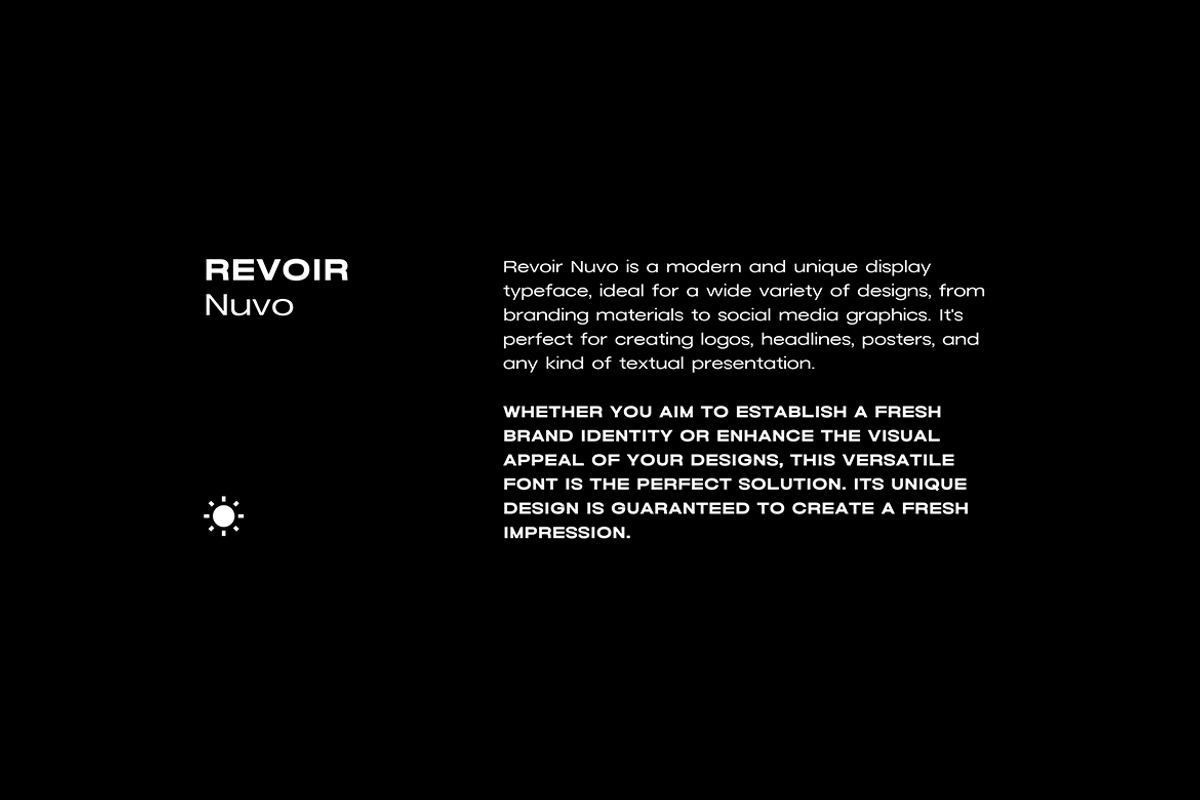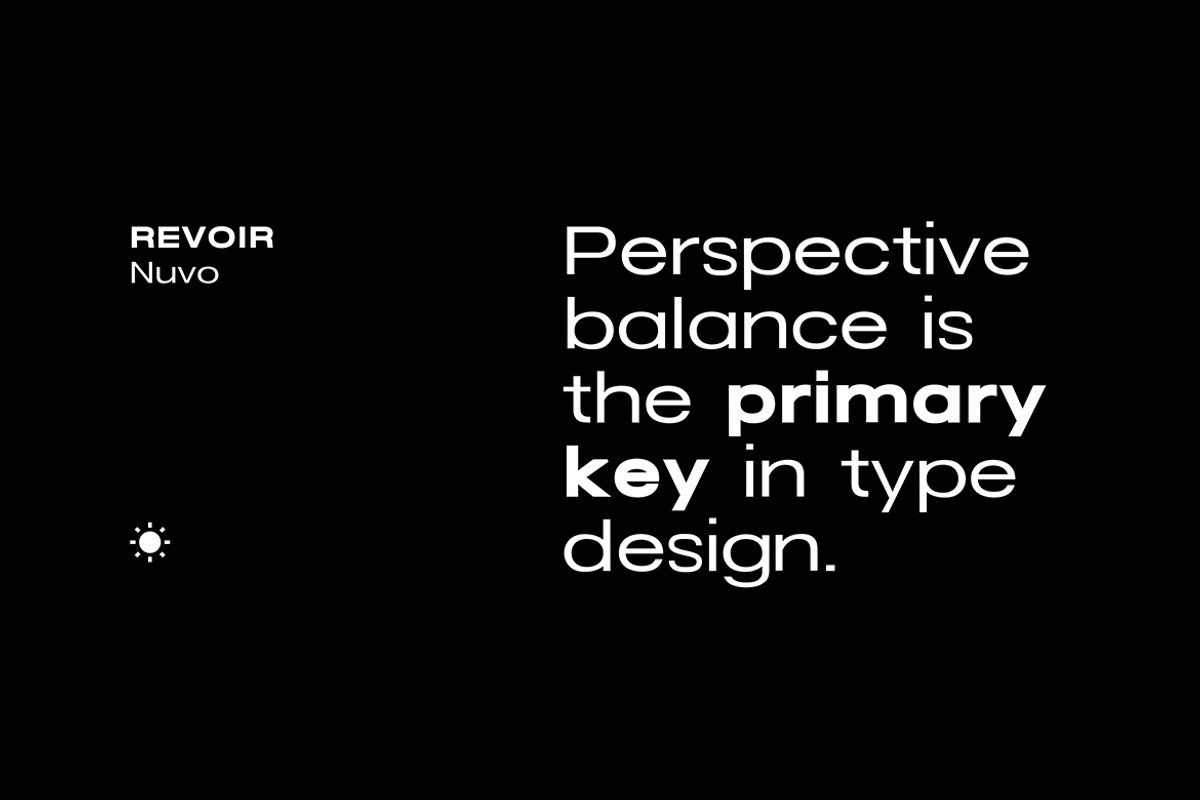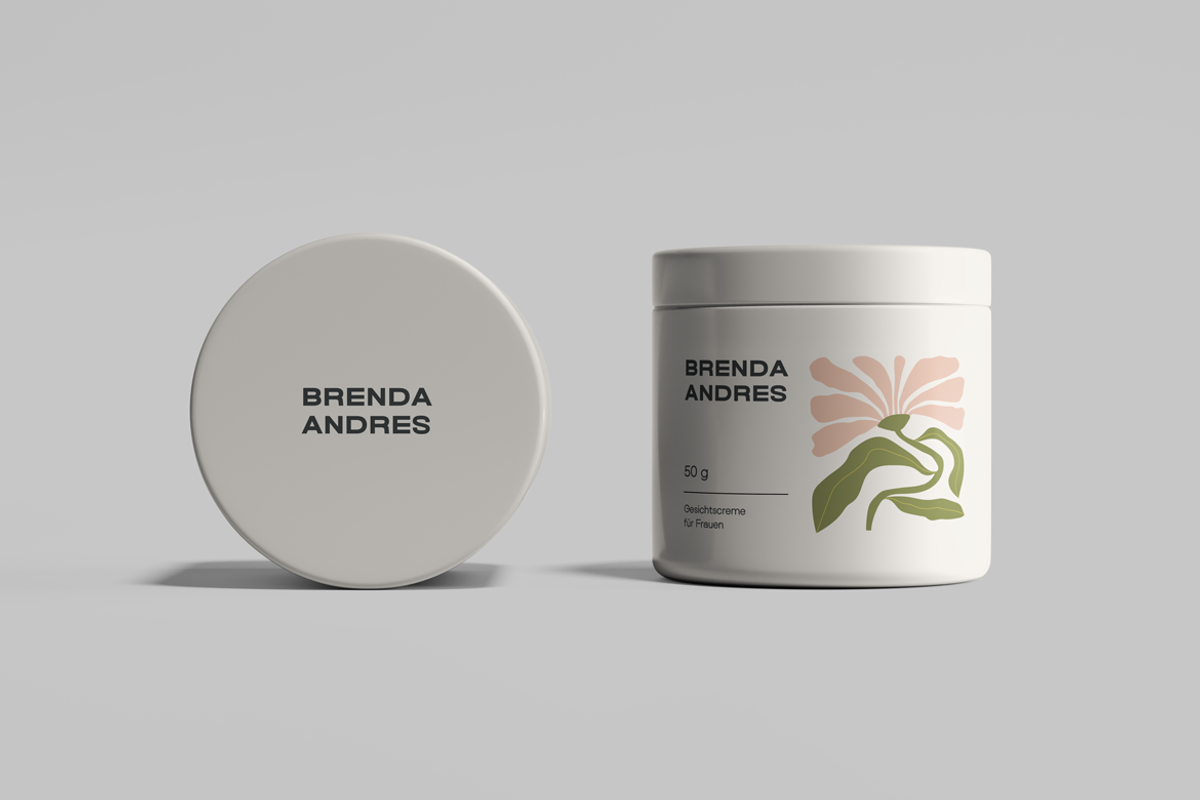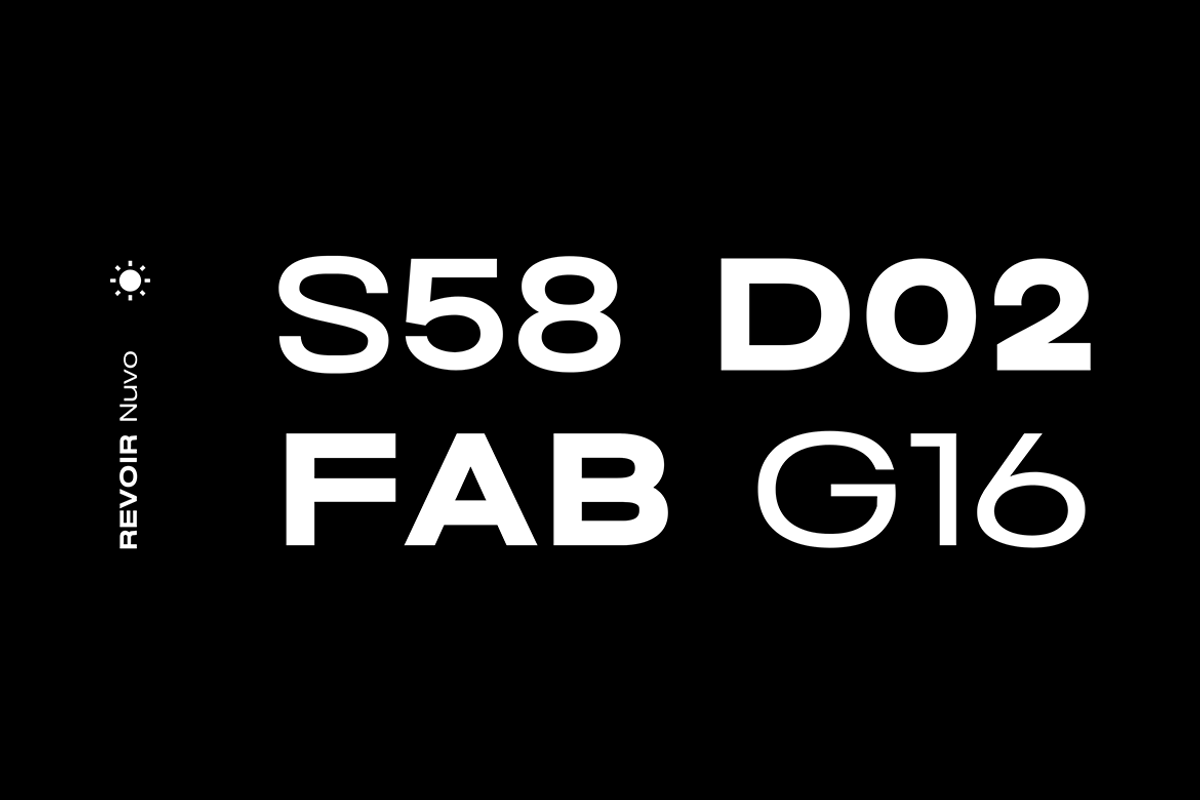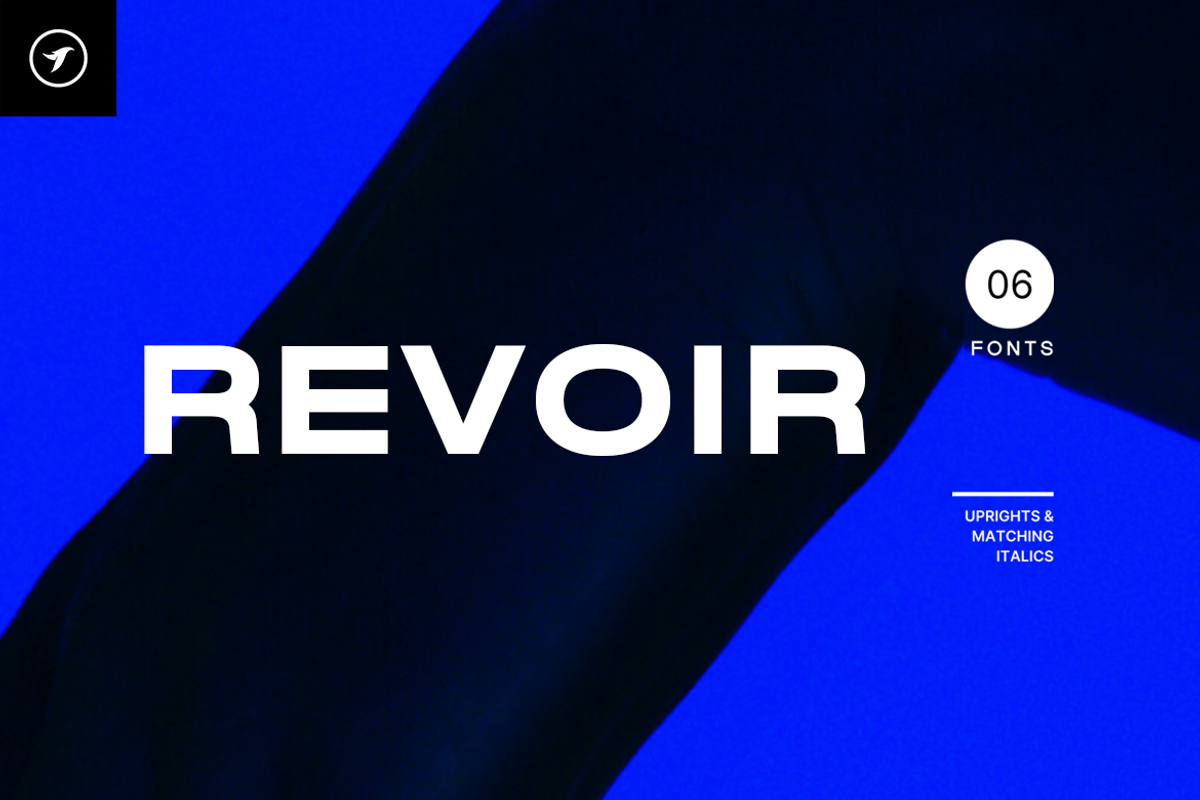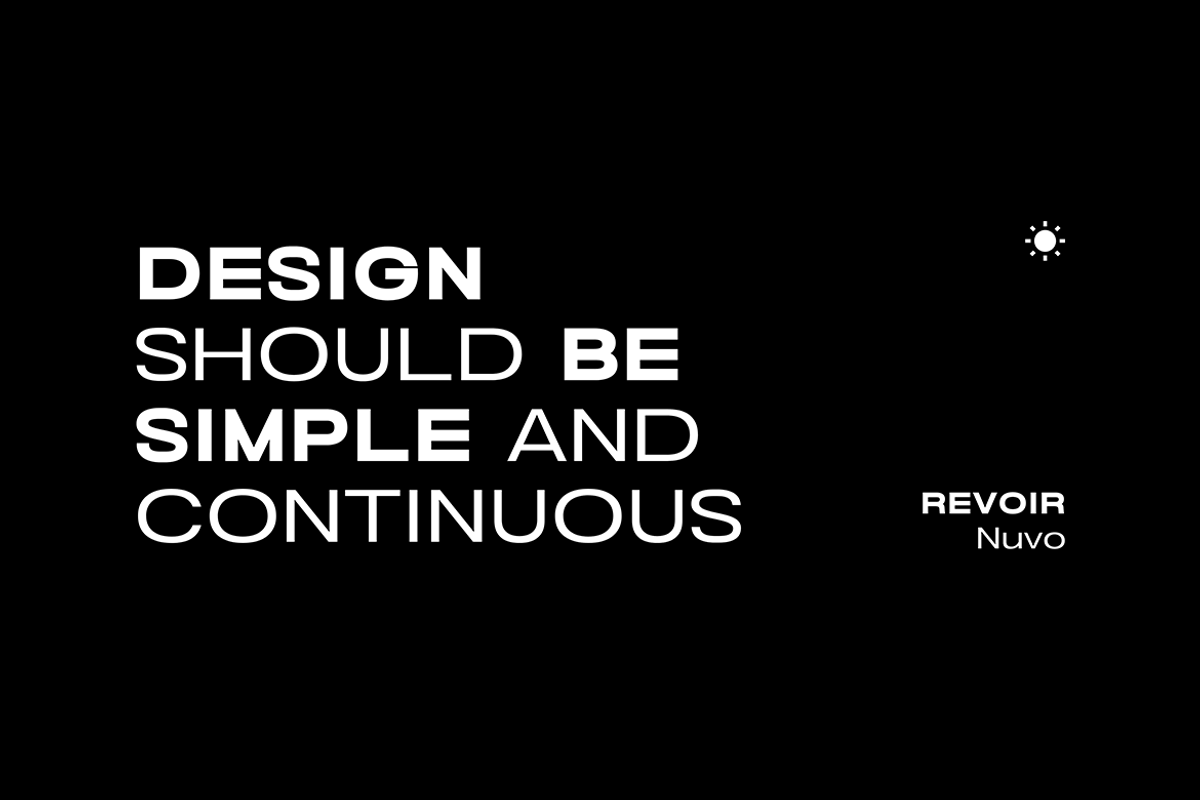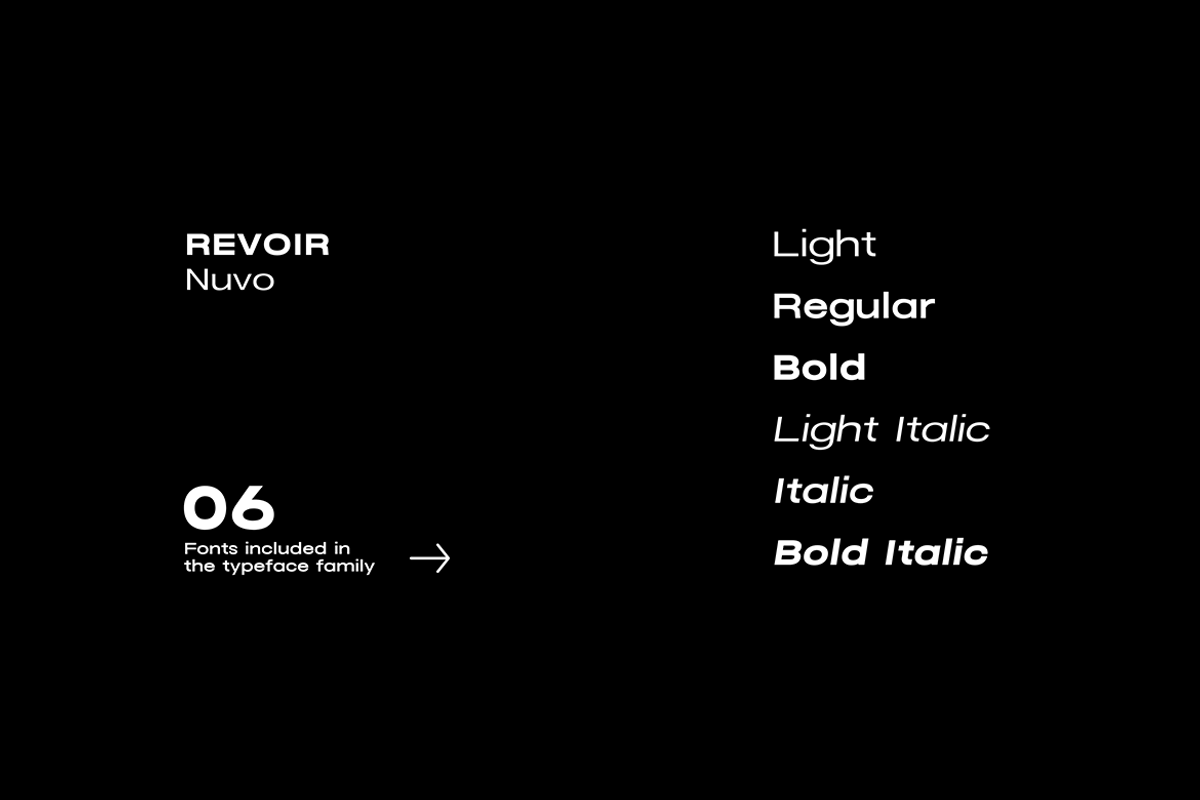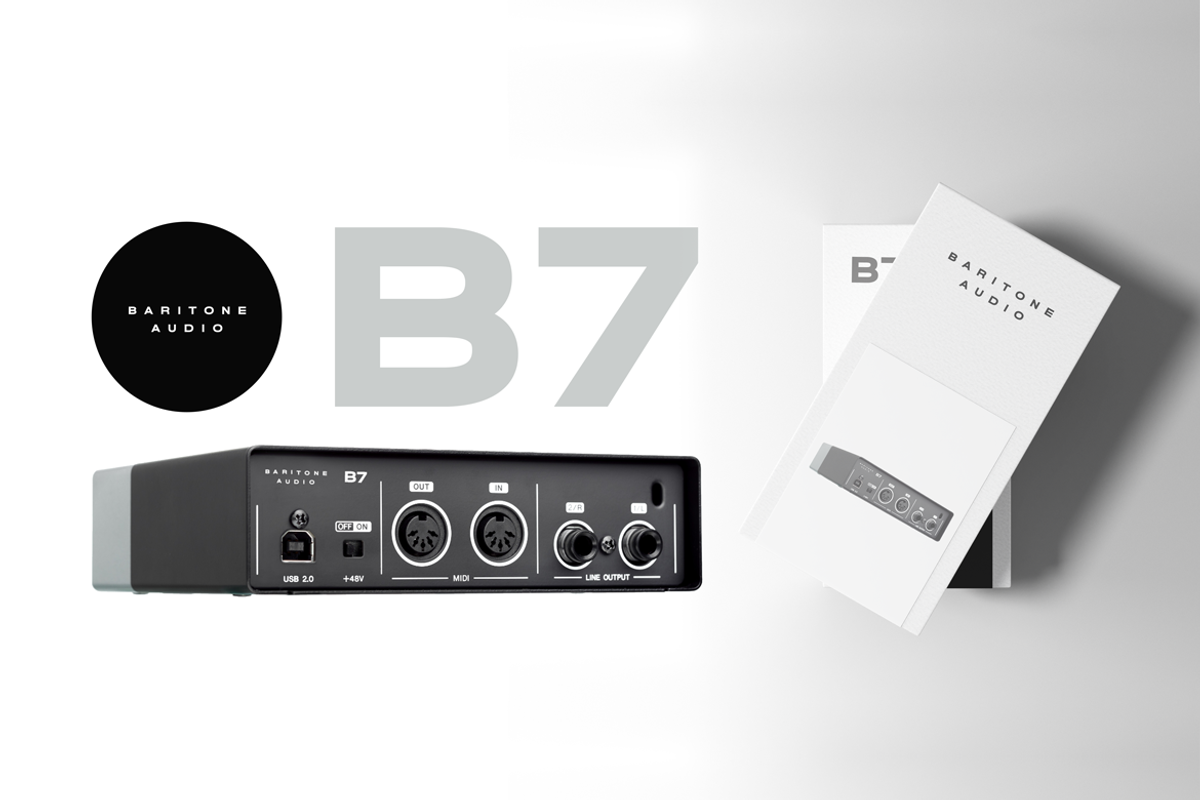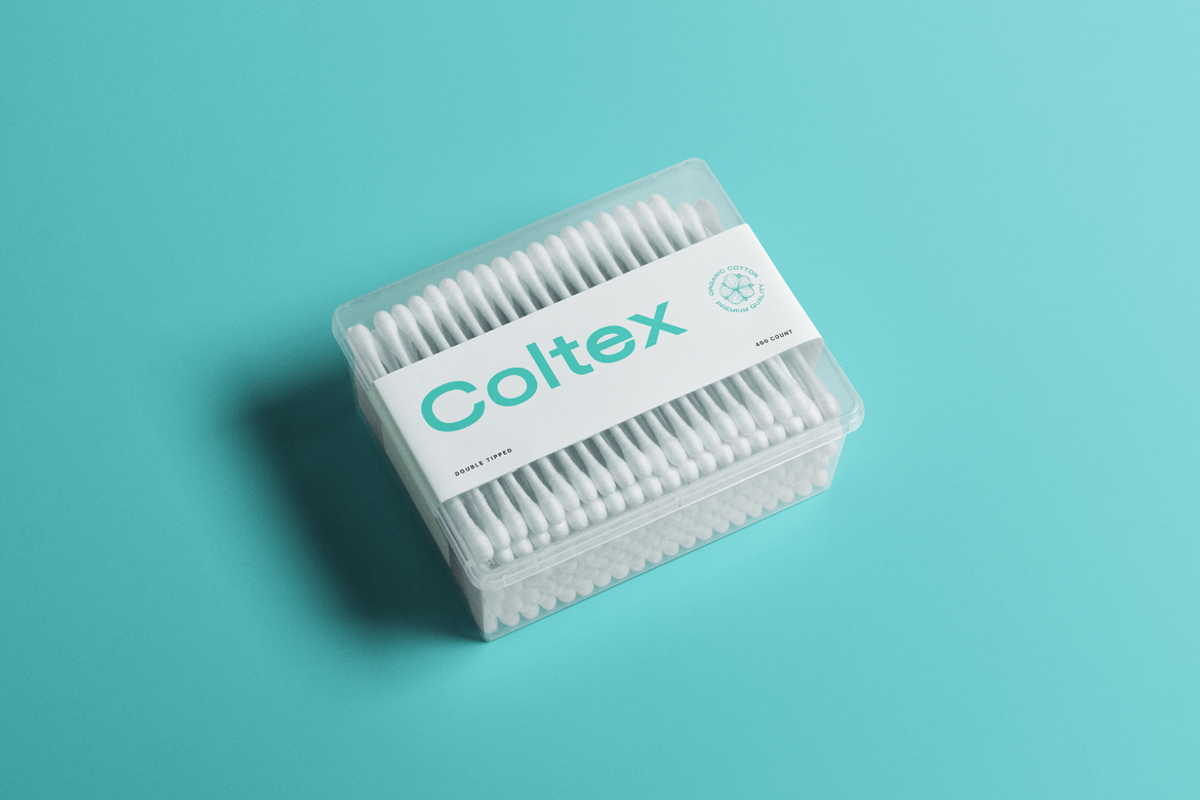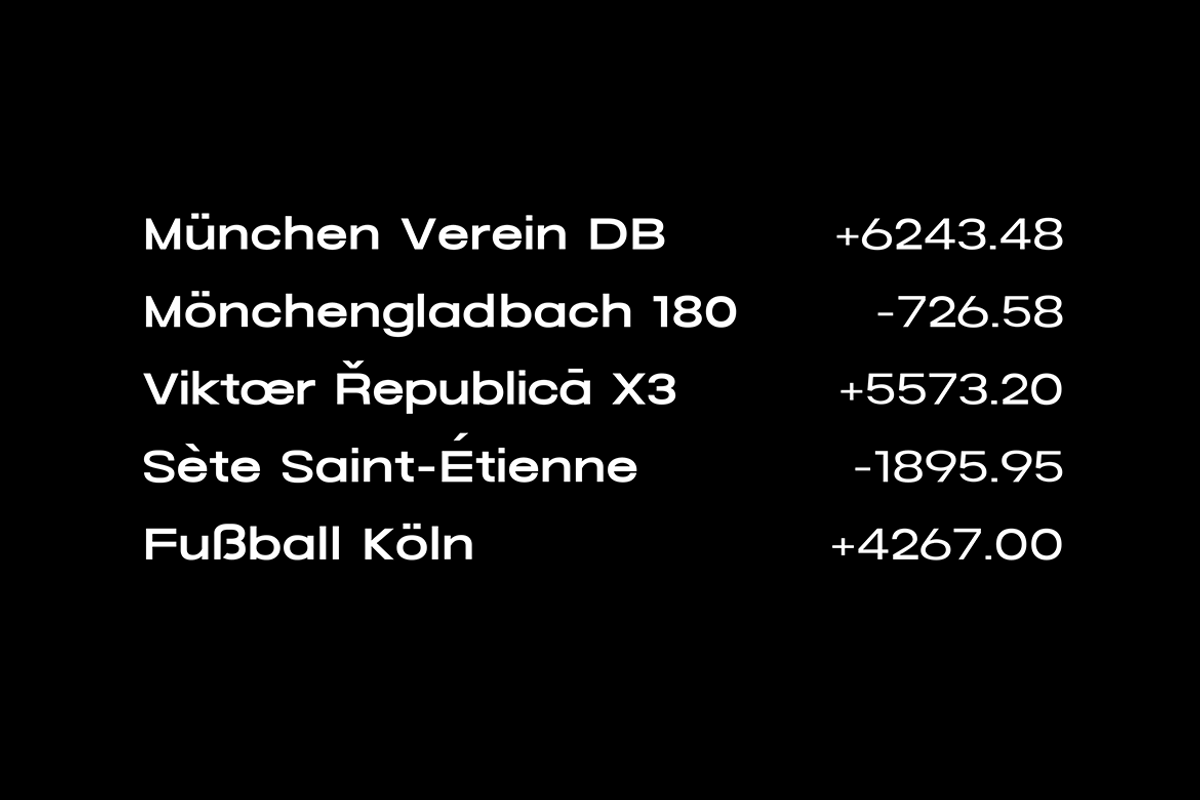
REVOIR - Modern Display Font Family
Revoir Nuvo is a modern and unique display typeface, ideal for a wide variety of designs, from branding materials to social media graphics. It's perfect for creating logos, headlines, posters, and any style of modern textual presentation.
Whether you aim to establish a fresh brand identity or enhance the visual appeal of your designs, this versatile font is the perfect solution. Its unique design is guaranteed to create a fresh impression.
Total number of fonts in the family: 06 (Light, Regular, Bold, Light Italic, Bold Italic)